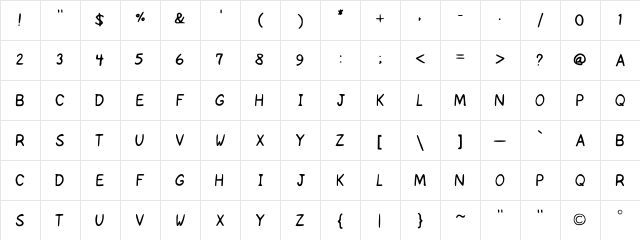
Complete Insomniac Comic Font Medium glyph index. Displaying only characters natively supported by Insomniac Comic Font Medium font.
Insomniac Comic Font has an approachable, lighthearted character - its loose, expressive forms are well-suited to children's content, casual branding, and fun-first design.
Font Pairing: Pairs well with a rounded or humanist sans for body copy, maintaining the friendly tone without relying on Insomniac Comic Font to carry extended reading.
Pro Tip: Use Insomniac Comic Font at larger display sizes where its expressive character can land. Pair with a clean, simple sans for body copy to maintain readability.